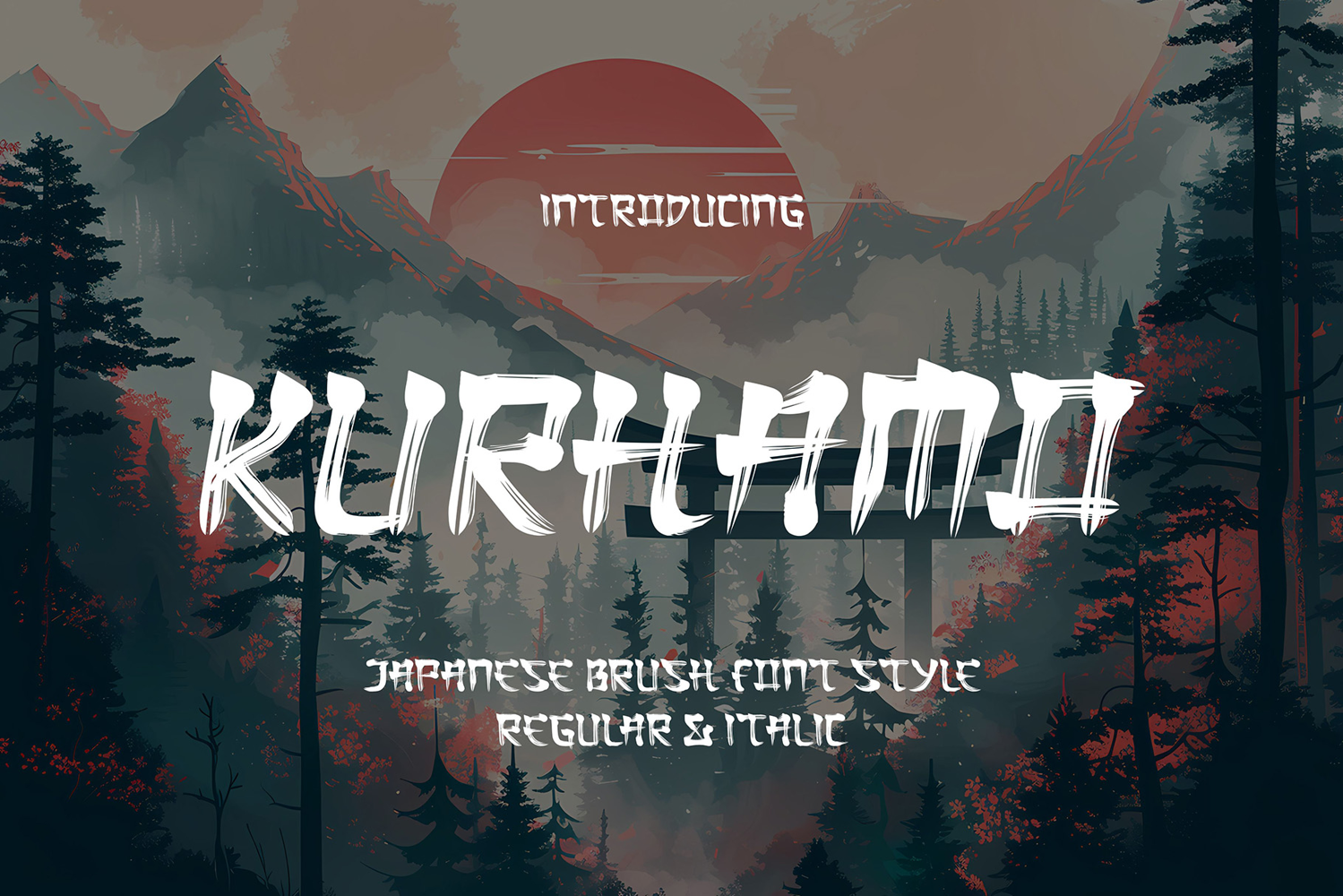
Kurhamo - Japanese Style Brush Font
Introducing Kurhamo – the Japanese Style Brush Font that brings the elegance and artistry of traditional calligraphy to your designs, now available in two versatile styles: Regular and Italic. Perfect for projects that need a touch of cultural sophistication, Kurhamo captures the essence of Japanese brush strokes with its fluid and graceful letterforms.
🌸 Elegant and Artistic: Kurhamo embodies the beauty of Japanese calligraphy with its smooth and flowing brush strokes. Each character is meticulously crafted to convey a sense of grace and artistry, making it ideal for designs that seek a refined and cultured aesthetic.
🗾 Two Versatile Styles: Available in both Regular and Italic styles, Kurhamo offers flexibility for your design needs. The Regular style delivers a classic and steady appearance, while the Italic style adds a dynamic and expressive touch, perfect for creating emphasis and variation.
🖋️ Cultural Sophistication: This font brings the timeless charm of Japanese culture to your projects. Whether you're designing logos, posters, or invitations, Kurhamo adds an authentic and sophisticated touch that stands out.
🎨 Dynamic and Expressive: The dynamic nature of Kurhamo adds a captivating touch to your designs. Its fluid lines and elegant curves make your text pop, creating a visually impactful look that resonates with the beauty of Japanese artistry.
🌟 Versatile for Various Projects: Kurhamo is perfect for a wide range of creative applications, from branding and packaging to digital art and event materials. Its unique style ensures your text is visually striking and culturally resonant.
Elevate your designs with Kurhamo – the Japanese Style Brush Font that combines elegance, versatility, and cultural authenticity in both Regular and Italic styles. Ideal for making a sophisticated visual impact, Kurhamo is your go-to font for adding an artistic and dynamic touch to any project.